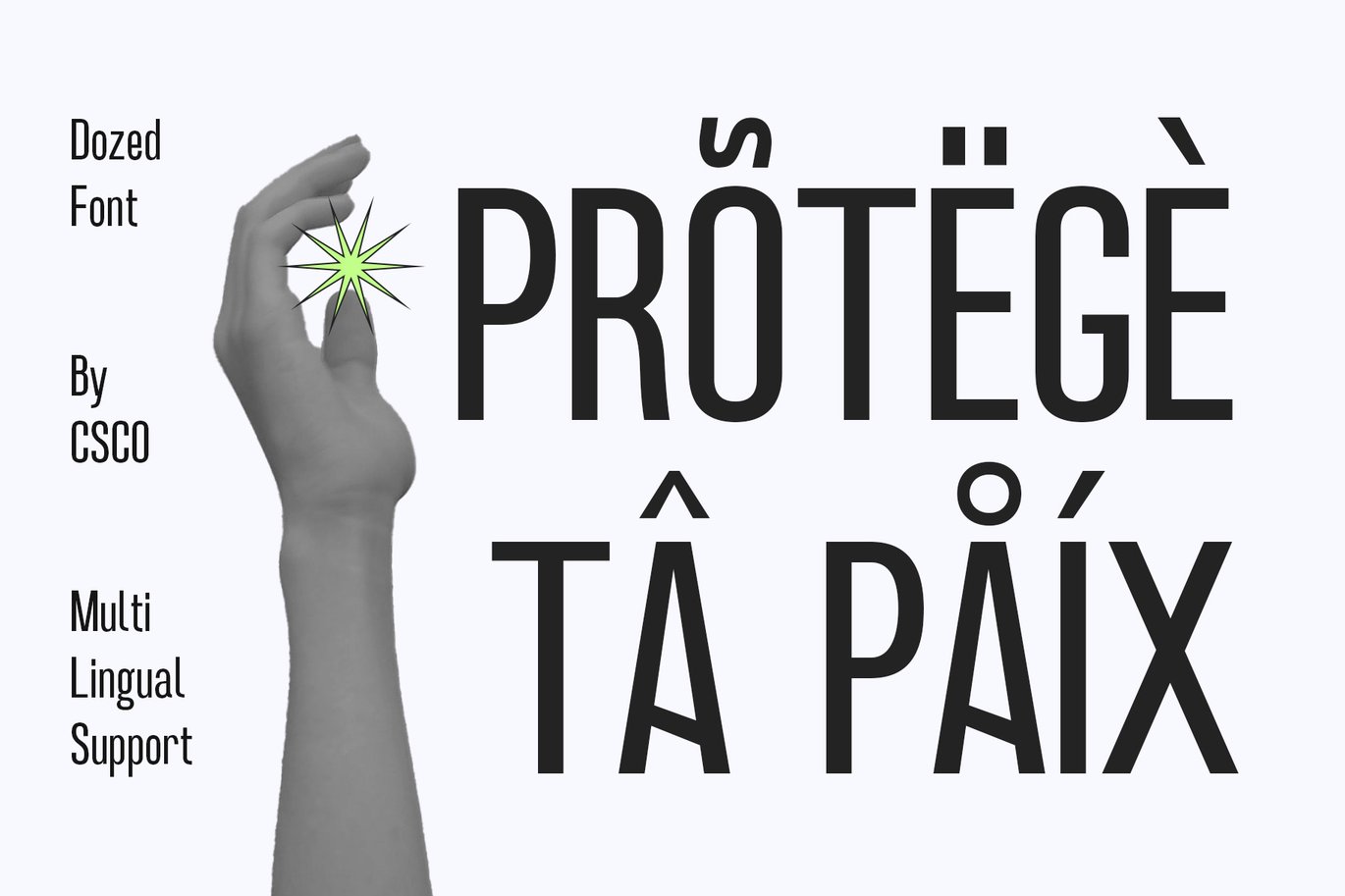
Dozed – Condensed Sans Serif Font
Dozed – Condensed Sans Serif Font is a versatile typeface ideal for various projects, including logos, branding, posters, blog headers, advertisements. The free version includes a full set of uppercase and lowercase letters, available in OTF format.